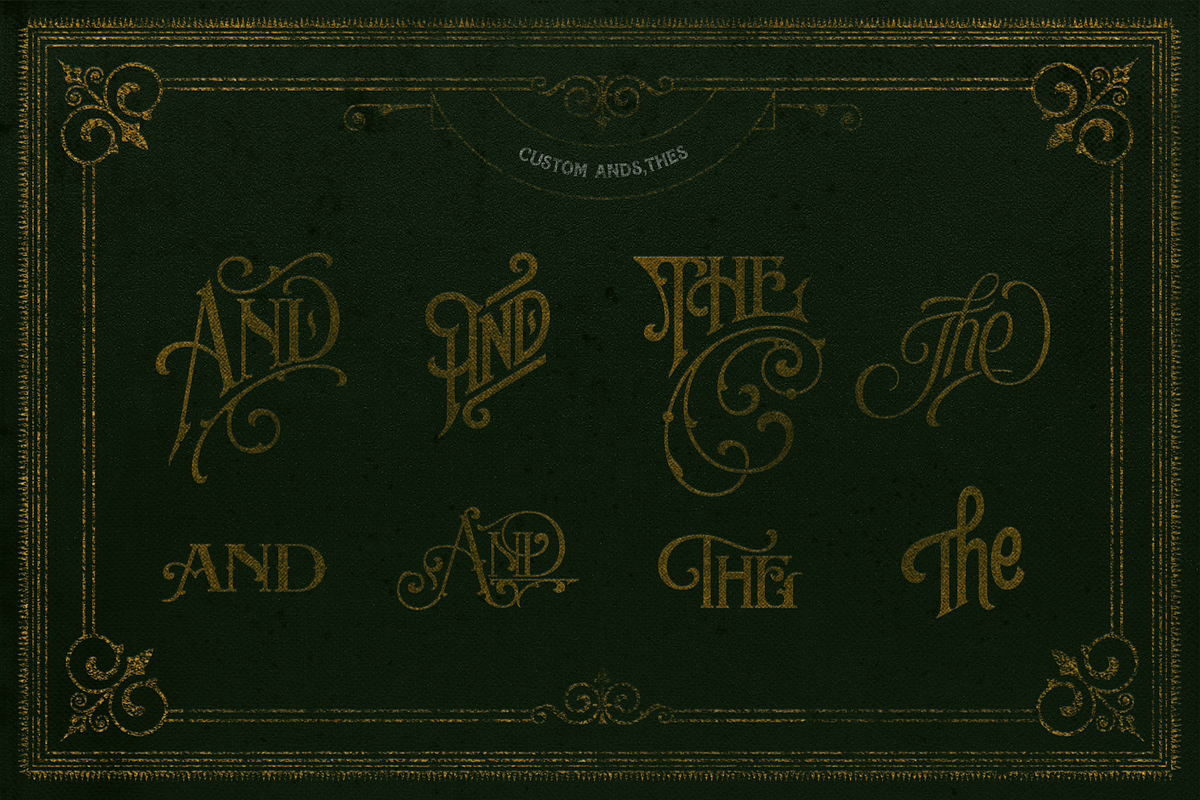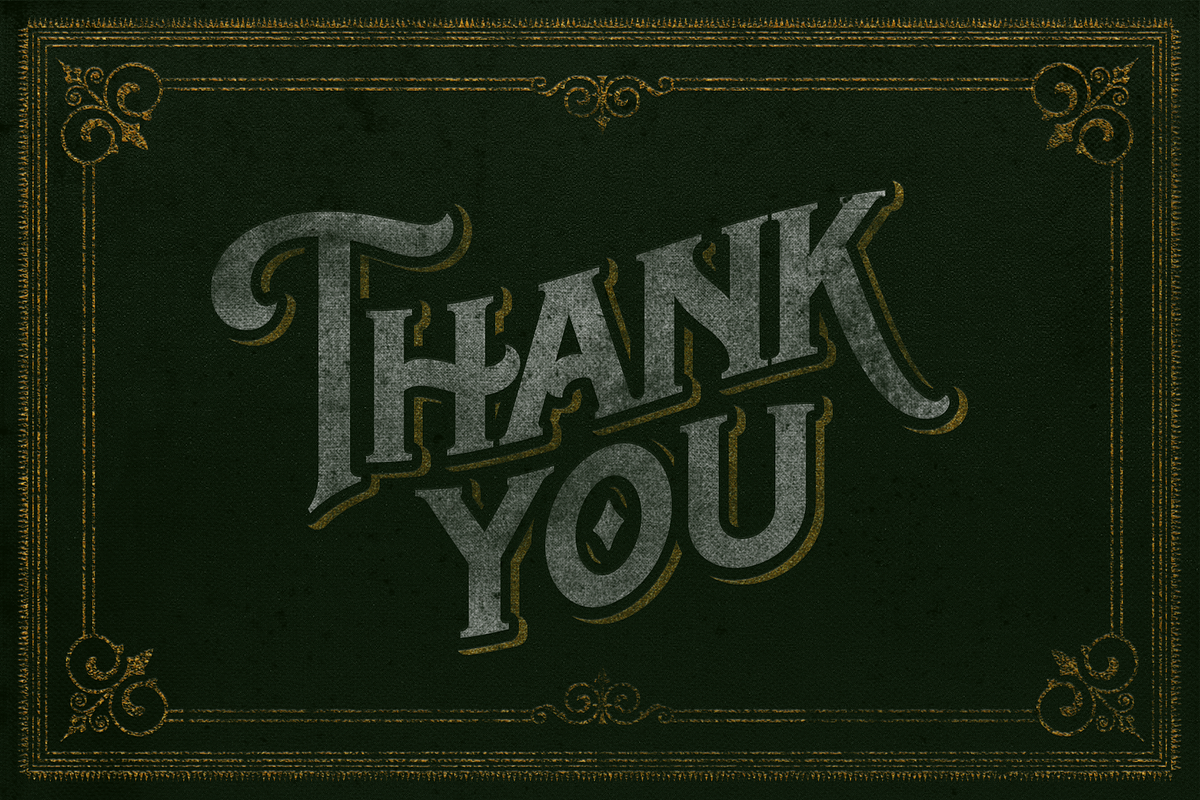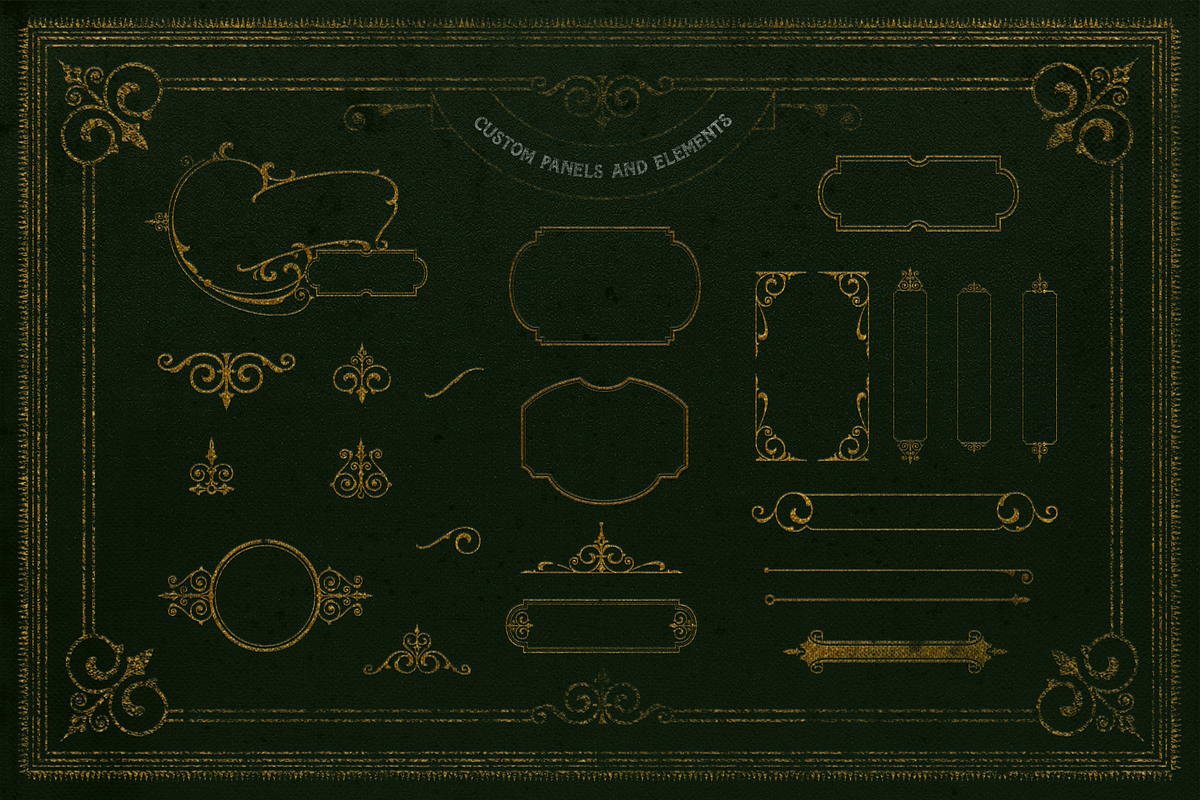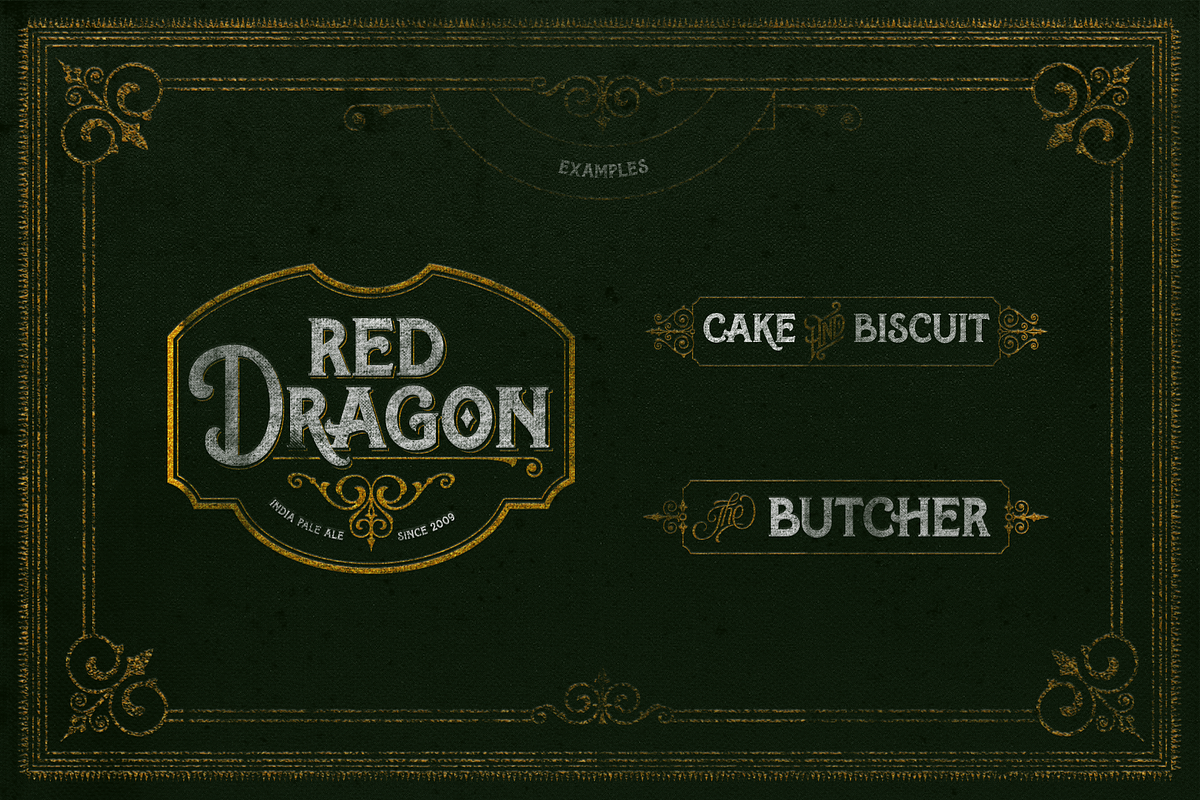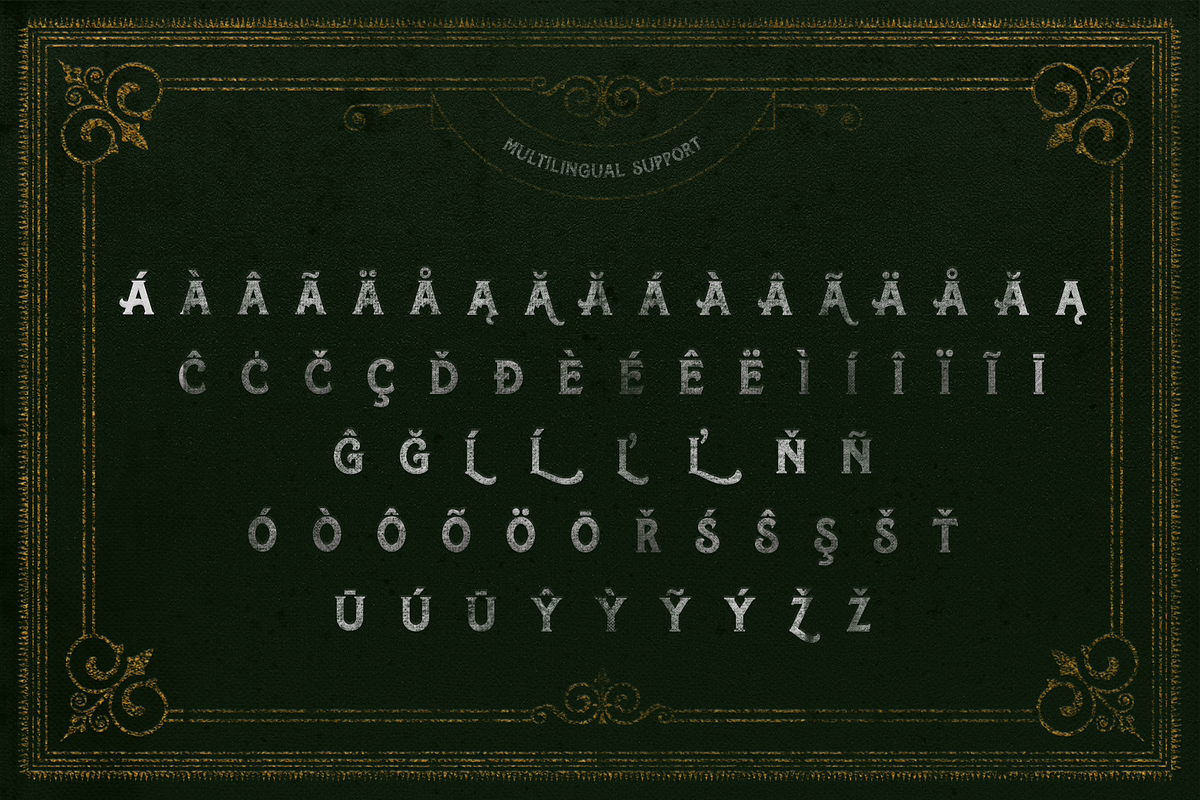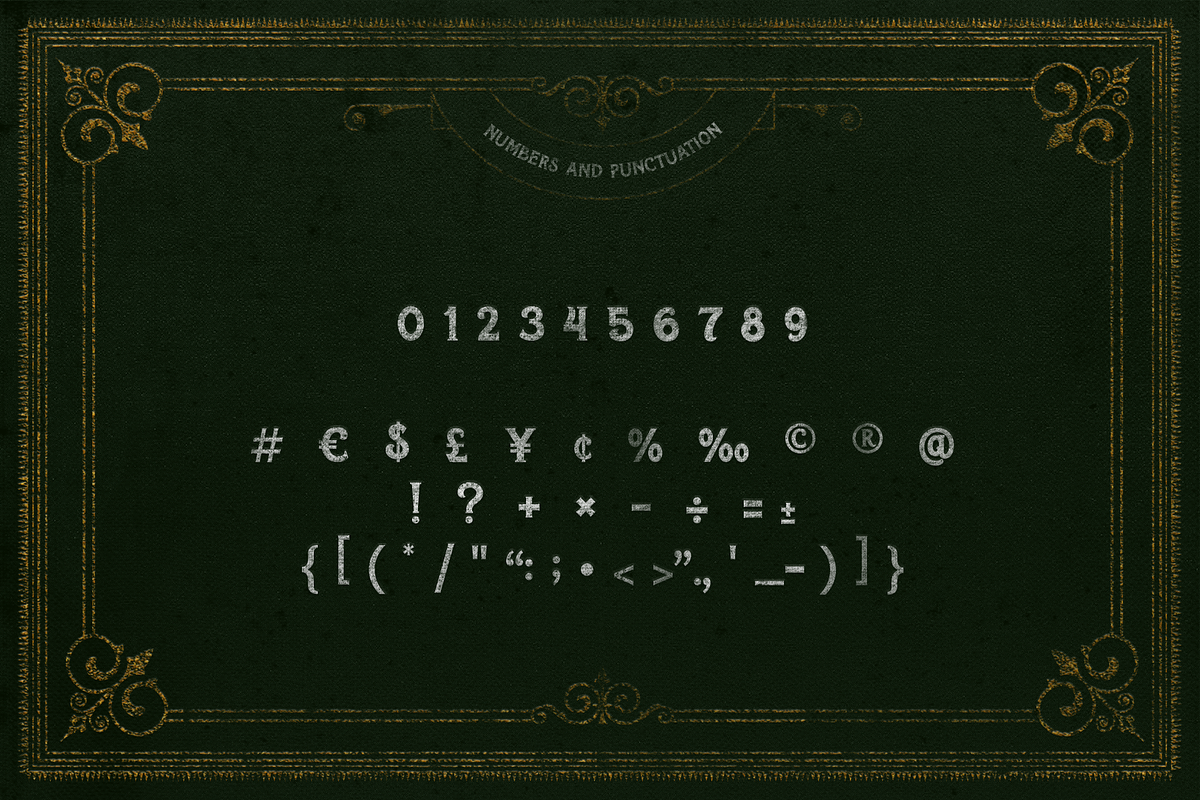
Tobie
Tobie is the vintage looking font inspired by old aesthetic of advertisement objects like tea tins, rustic wooden boxes, cigar boxes, whiskey barrel labels, posters and more. With more than 400 glyphs and multilingual support you are ready to push your projects to the next level. The whole package contains 22 bonus vector elements (panels, decorative elements) and custom ands, thes to make your project more authentic. Have a fun!